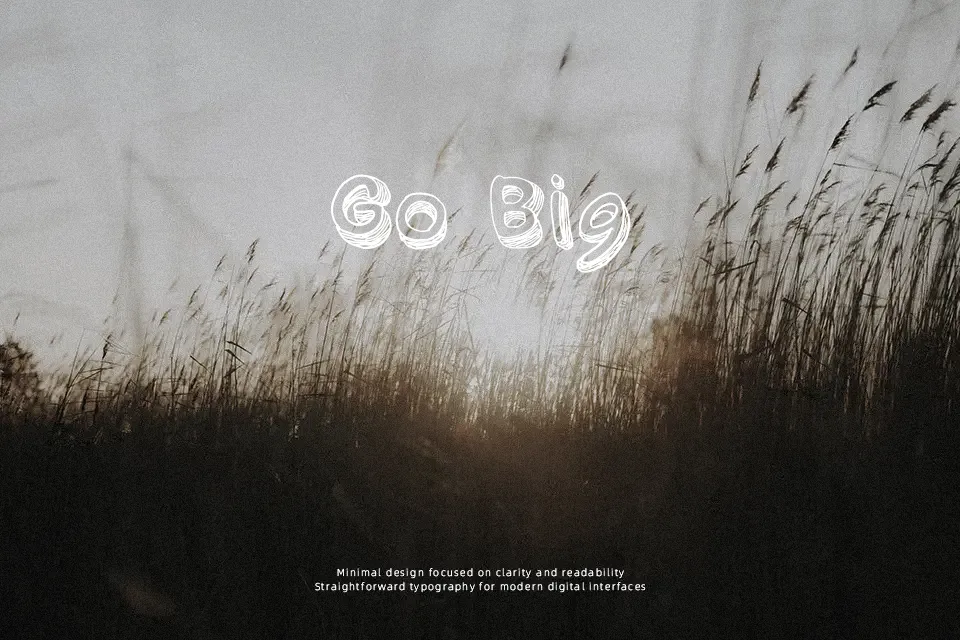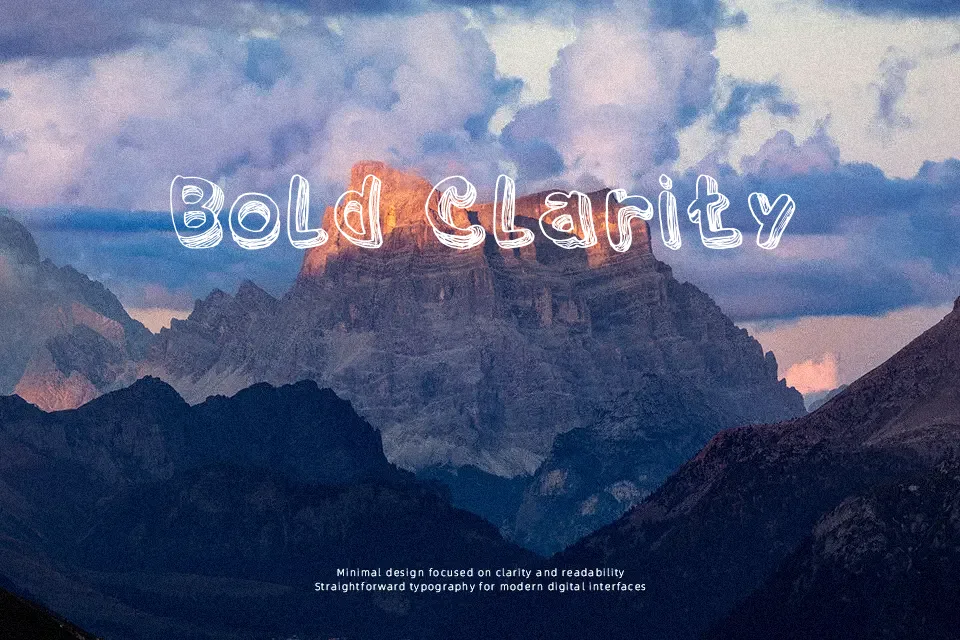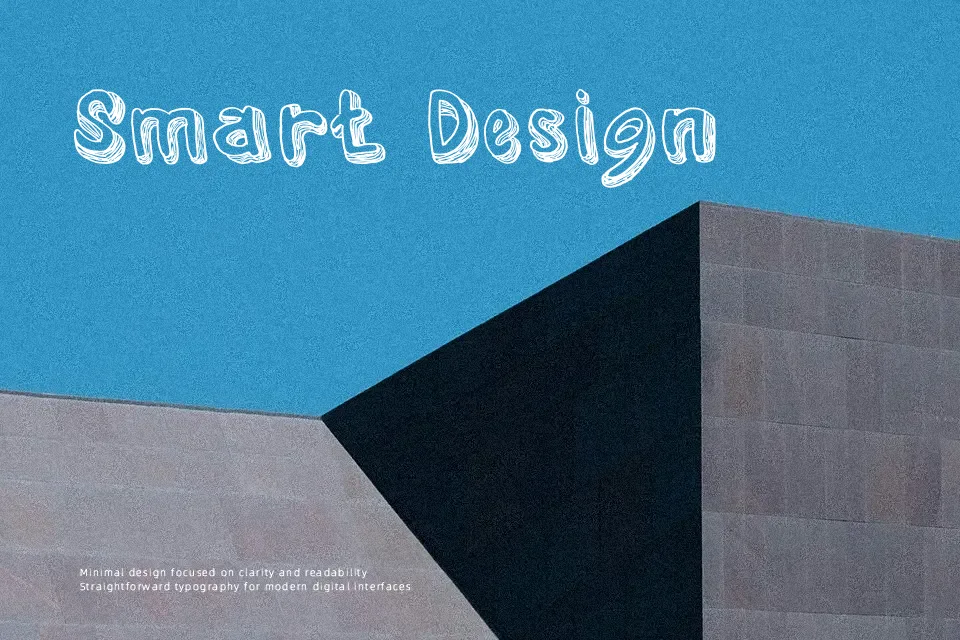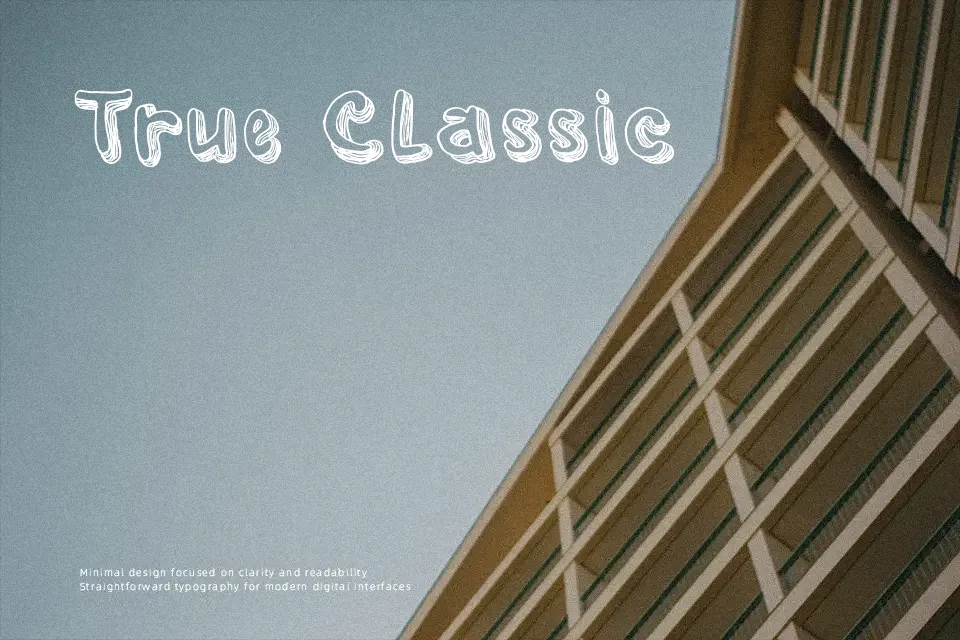
Art History Book Font
Designed by Reguler Studio
The strokes here are thick, outlined, and almost inflated — like chalk letters drawn with deliberate exaggeration on a blackboard. Art History Book carries the energy of a Saturday morning cartoon title card: bubbly, confident, and unapologetically loud. Each character features outlined 3D depth that adds visual weight without complex layering. In practice, this font works well on children’s book covers, classroom posters, comic panel headers, and social media graphics where personality matters more than precision. It also holds up reasonably on merchandise and event flyers targeting younger audiences. That said, the heavy cartoon styling makes it unsuitable for anything requiring formal credibility — corporate branding, editorial body text, or professional reports would feel tonally off. The demo version covers personal use; commercial projects need a license.
Best For:- Children’s book cover titles and chapter headers
– Comic strip or cartoon-style social media graphics
– Classroom or educational poster headlines
– Playful merchandise or event flyer lettering
Not Ideal For:- Long paragraph or body text — legibility breaks down quickly at small sizes
– Corporate branding, legal documents, or formal business materials
– Minimalist or editorial design layouts
– Multilingual or extended character set requirements (partial accent support only)
Perfect for editorial, kids, and packaging, with a bold and cartoon style.